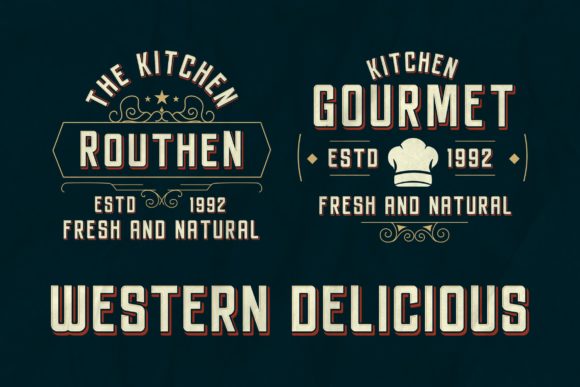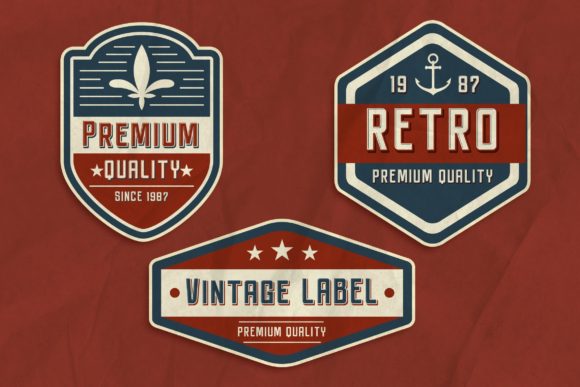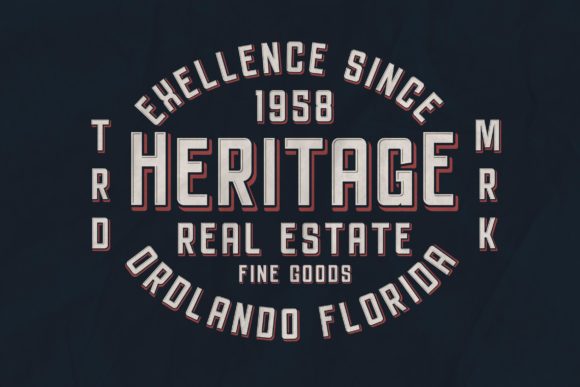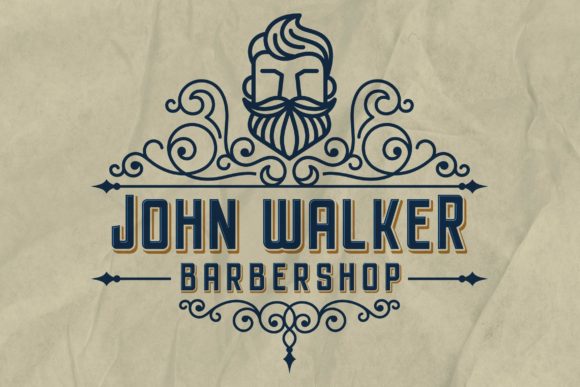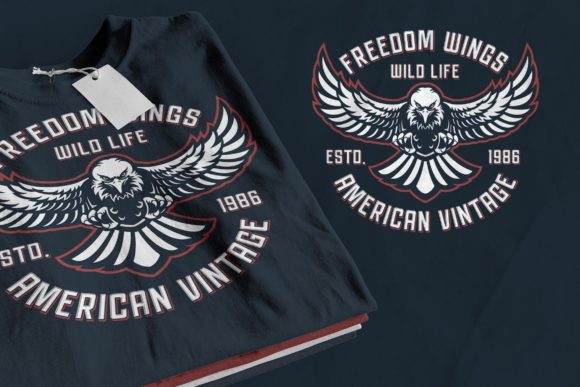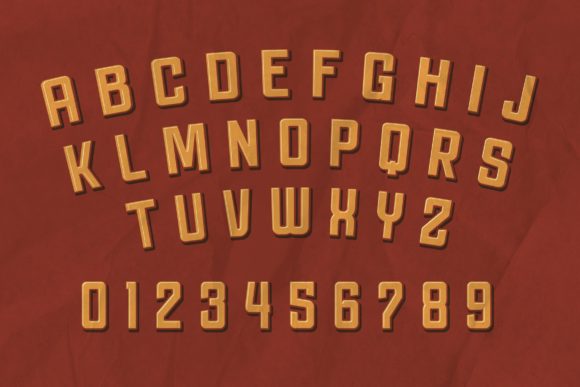
The Perfect Font for Your Next Design Masterpiece
Have you ever been stuck in front of your computer screen, staring at a blank document, waiting for that elusive spark of inspiration to strike? It’s a moment we’ve all experienced at some point in our creative journeys. But what if we told you that the key to unlocking your full design potential lies in the right font?
Enter the Braynerd Font, a charming sans serif font that’s guaranteed to bring a touch of authenticity to your designs. Whether you’re crafting a logo, creating a poster, or working on a project that requires a dash of personality, Braynerd Font is the perfect partner in crime. Its versatility and charm make it a valuable addition to any designer’s toolkit, and we can’t wait to see what you create with it!
Braynerd Font Key Features
- Unique Characteristic: The font’s distinctive geometric and modern design elements, creating a unique visual identity.
- Font Style: Offers a range of font styles, including Regular, Italic, Bold, and Bold Italic, providing flexibility for different design needs.
Braynerd Font Review
Overall, I think Braynerd Font is a decent choice for designers looking for a unique sans-serif font. ✨ It has a clean, modern aesthetic that works well for digital and print materials.
- ✨ Versatile: Braynerd Font is suitable for a wide range of applications, from headings to body text.
- ✨ Clear readability: The font’s x-height and letter spacing make it easy to read, even at small font sizes.
- ✨ Customizable: Braynerd Font offers various weights and styles, allowing designers to create a cohesive visual identity.
- ⚠️ Limited language support: Braynerd Font may not support all languages, which can be a concern for designers working with multilingual clients.
- ⚠️ Not ideal for small text: While Braynerd Font is readable at small sizes, it may not be the best choice for text that requires a high level of detail, such as technical documentation.
Braynerd Font is a solid choice for designers who want a clean, modern sans-serif font. While it has its limitations, its versatility and clear readability make it a worthwhile consideration for a wide range of projects.
Practical Application Guide for Braynerd Font
Tips for Getting the Most Out of Braynerd Font
Use Braynerd Font sparingly to add a touch of elegance and sophistication to your designs. Avoid using it for large blocks of text, as it can be difficult to read. Experiment with different font sizes and styles to create a unique look.
Braynerd Font is ideal for use in branding and marketing materials, such as logos, business cards, and brochures. It’s also a great choice for use in wedding invitations, menus, and other formal documents.